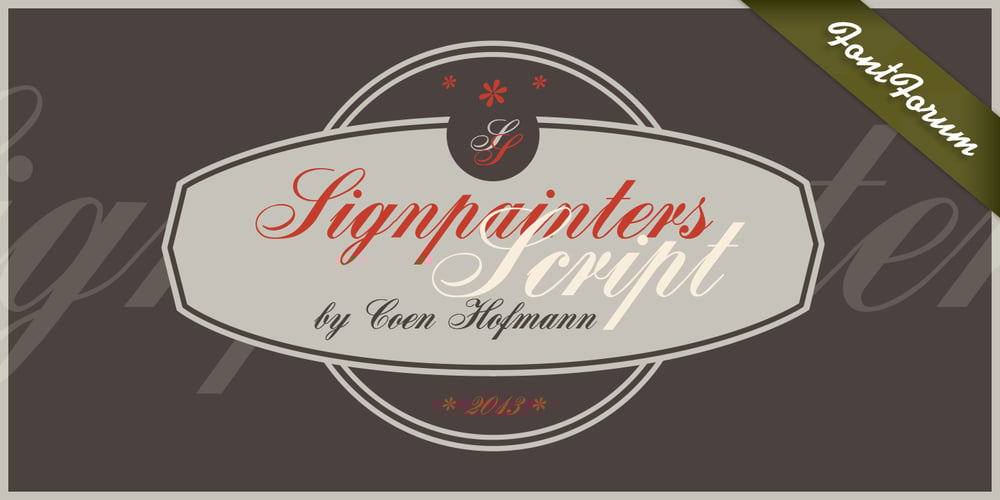
SignPainters Script Font Family was designed by Coen Hofmann and published by URW Type Foundry. SignPainters Script contains 1 styles and family package options. For his new typeface Coen Hofmann was inspired by old sign lettering. This design Signpainters Script was a typical one used as a handdrawn lettering for shop windows and fascias in the days when cutting plotters were still a thing of the future.